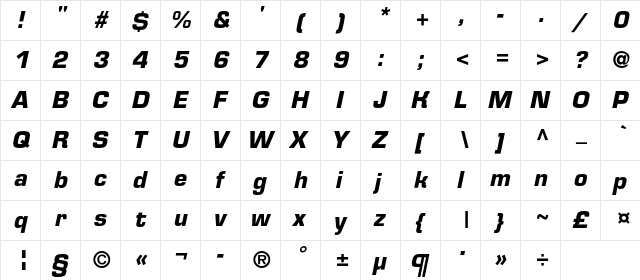
EurofontC Bold Italic Font Preview
EurofontC Bold Italic
EurofontC Bold Italic Font Details
Design Context for EurofontC Typeface
EurofontC offers clean, dependable letterforms without strong stylistic allegiance, making it a practical choice for designers who need flexibility. The dynamic lean of this cut emphasises speed and emphasis in any layout. The heavy weight commands attention and anchors typographic hierarchies.
Pro Tip: Use EurofontC for emphasis, pull quotes, and subheadings where its slanted energy can add rhythm to the layout.